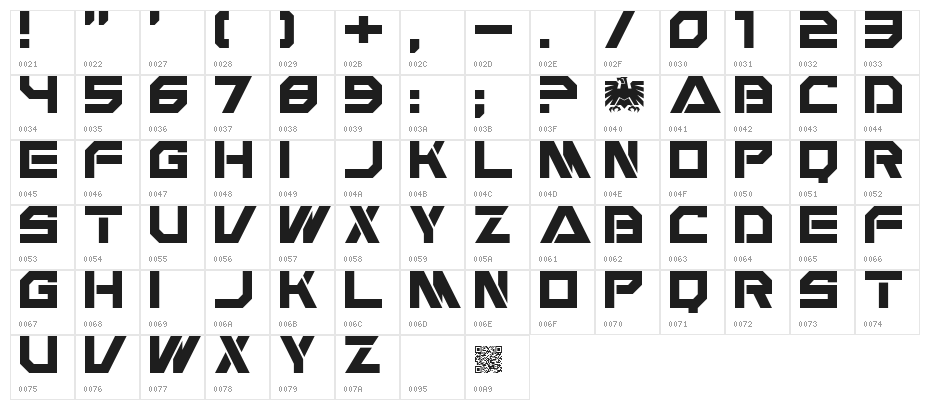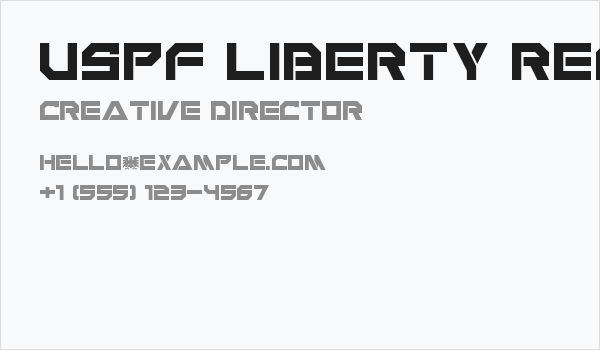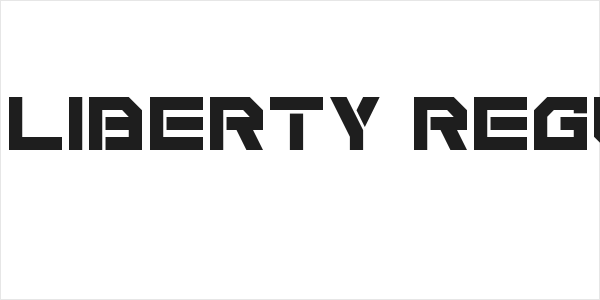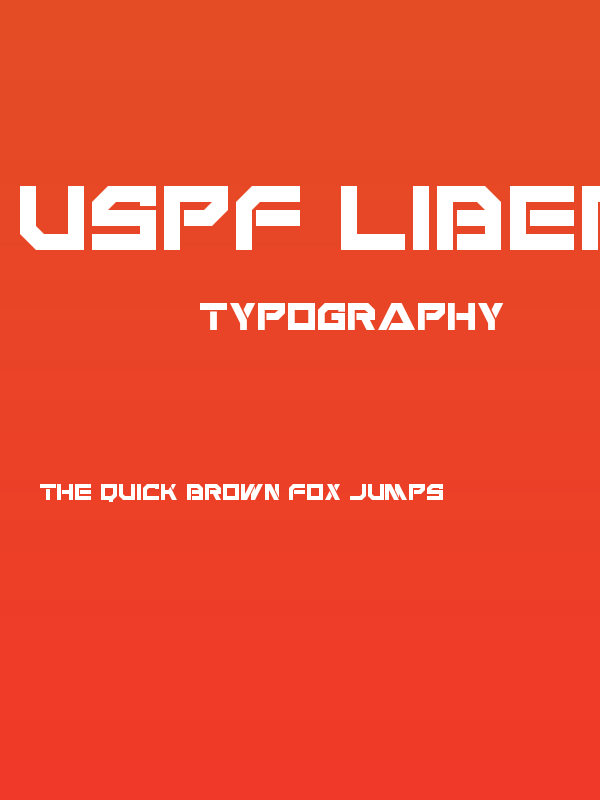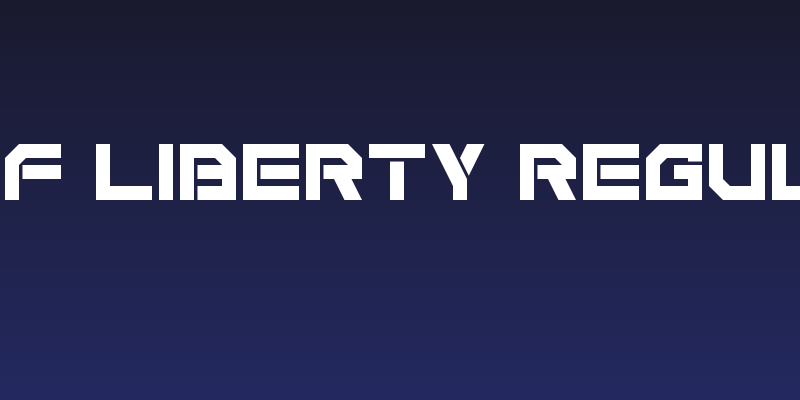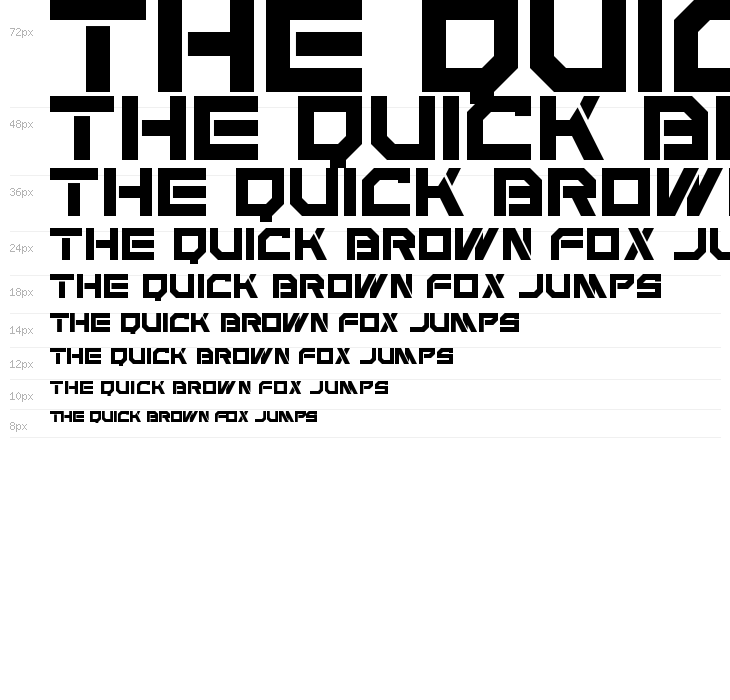
USPF Liberty Regular Font
USPF Liberty Regular Description
This font features a bold, geometric design with a futuristic and industrial aesthetic. The characters are constructed with sharp angles and straight lines, giving them a strong, impactful presence. The uppercase letters are uniform in height, while the lowercase letters maintain a similar structure, enhancing readability. Numbers and special characters follow the same angular style, ensuring consistency across all glyphs. The font's design is reminiscent of digital or mechanical themes, making it suitable for modern and tech-oriented projects.
| Proposed Projects | Ideal for technology branding, video game titles, sci-fi posters, and industrial-themed designs. |